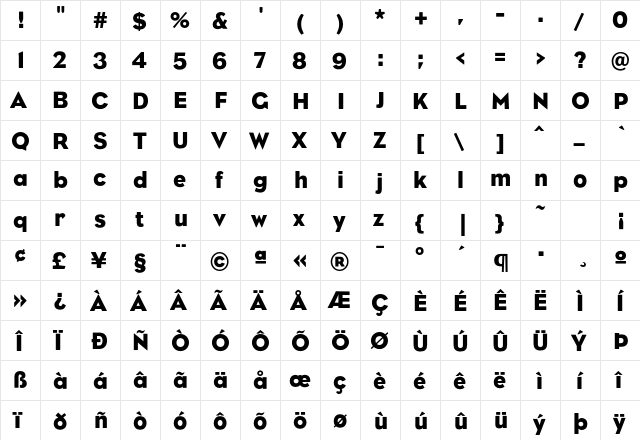
Bureau Eagle FB Book Regular
Design Context for Bureau Eagle FB Book Typeface
Bureau Eagle FB Book offers clean, dependable letterforms without strong stylistic allegiance, making it a practical choice for designers who need flexibility.